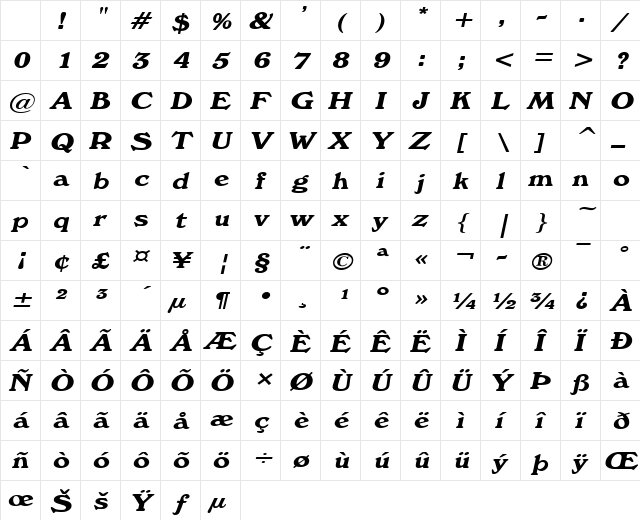
WrenWide is a composed and adaptable typeface that performs quietly and consistently across a wide range of design contexts. The slanted form adds forward momentum and visual energy.
Pro Tip: Use WrenWide for emphasis, pull quotes, and subheadings where its slanted energy can add rhythm to the layout.